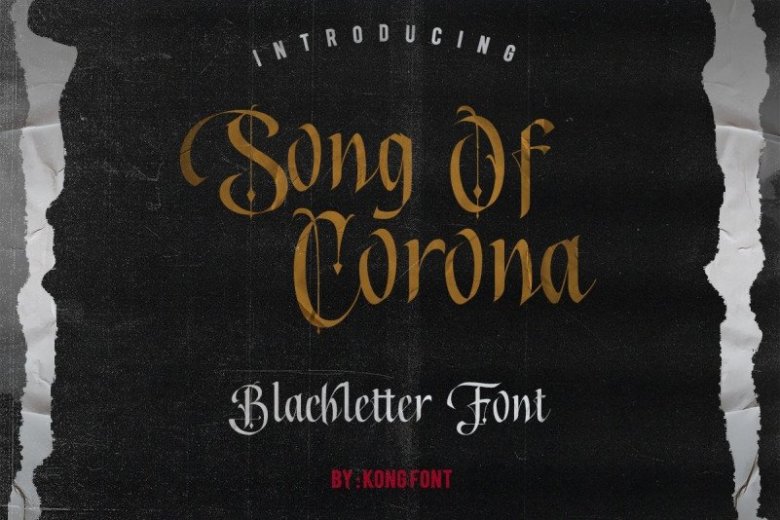
Song of Corona – Blackletter Font
Introducing our New Font, very suitable as to make adorable invitation for wedding, birthday, special day and also perfect for your other projects branding.